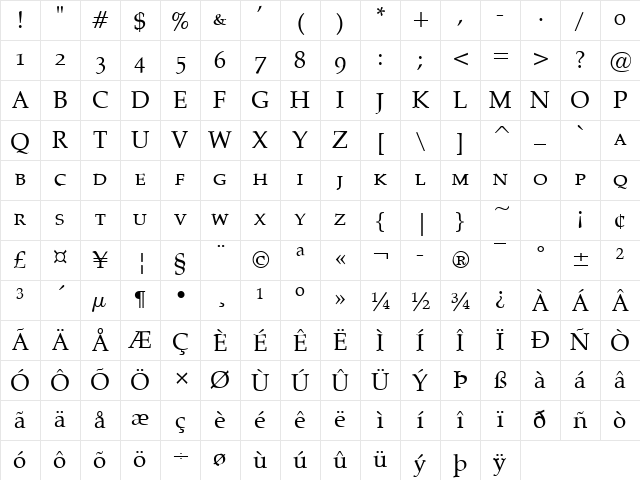
Pheasant Small Caps Normal
Design Context for Pheasant Small Caps
Pheasant Small Caps is a composed and adaptable typeface that performs quietly and consistently across a wide range of design contexts.
Pro Tip: Use Pheasant Small Caps in both headline and body roles to test its range before committing to a single application.